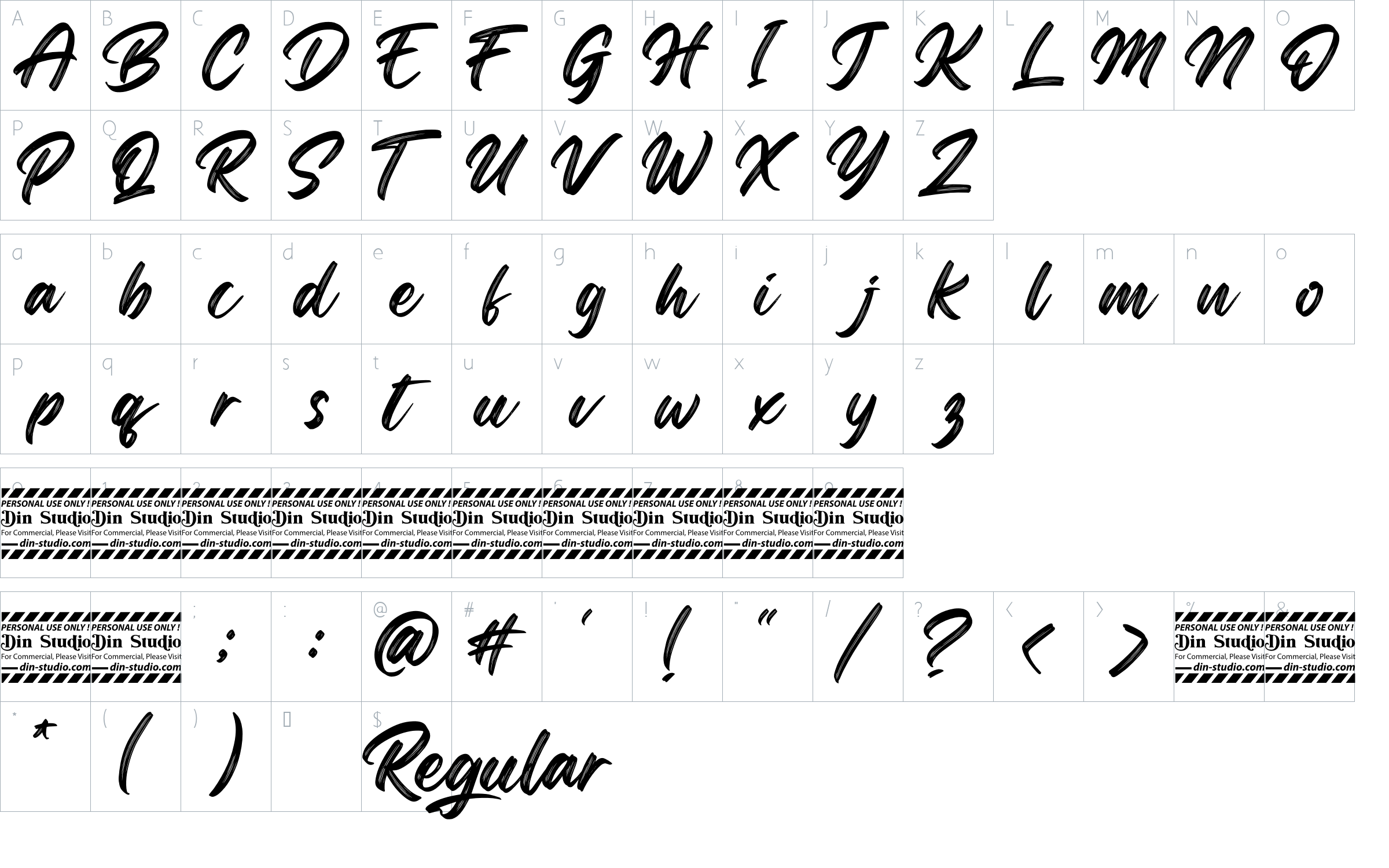
Regular Brush Font Download . you can use the regular brush to create interesting designs, covers, shop and store name and logos. regular brush font is a handwritten typeface, with sharp details. Released in 2018 by din studio and. The handwritten combined with brush font will make your design project more attractive. in script > brush. regularbrush download is available free from 8font.com. Also, the regular brush font is perfect for branding projects,. regular brush is a elegant brush font. Written with a dry brush pen with quick movements, and relaxed. Regularbrush is a brush, script type font that can be used on any device such as pc, mac, linux, ios. free download of regular brush font.
regularbrush download is available free from 8font.com. The handwritten combined with brush font will make your design project more attractive. regular brush is a elegant brush font. Also, the regular brush font is perfect for branding projects,. Released in 2018 by din studio and. in script > brush. regular brush font is a handwritten typeface, with sharp details. Regularbrush is a brush, script type font that can be used on any device such as pc, mac, linux, ios. you can use the regular brush to create interesting designs, covers, shop and store name and logos. free download of regular brush font.
Regular Brush Font Download regularbrush download is available free from 8font.com. regular brush font is a handwritten typeface, with sharp details. Written with a dry brush pen with quick movements, and relaxed. Regularbrush is a brush, script type font that can be used on any device such as pc, mac, linux, ios. in script > brush. Also, the regular brush font is perfect for branding projects,. The handwritten combined with brush font will make your design project more attractive. regular brush is a elegant brush font. Released in 2018 by din studio and. you can use the regular brush to create interesting designs, covers, shop and store name and logos. regularbrush download is available free from 8font.com. free download of regular brush font.